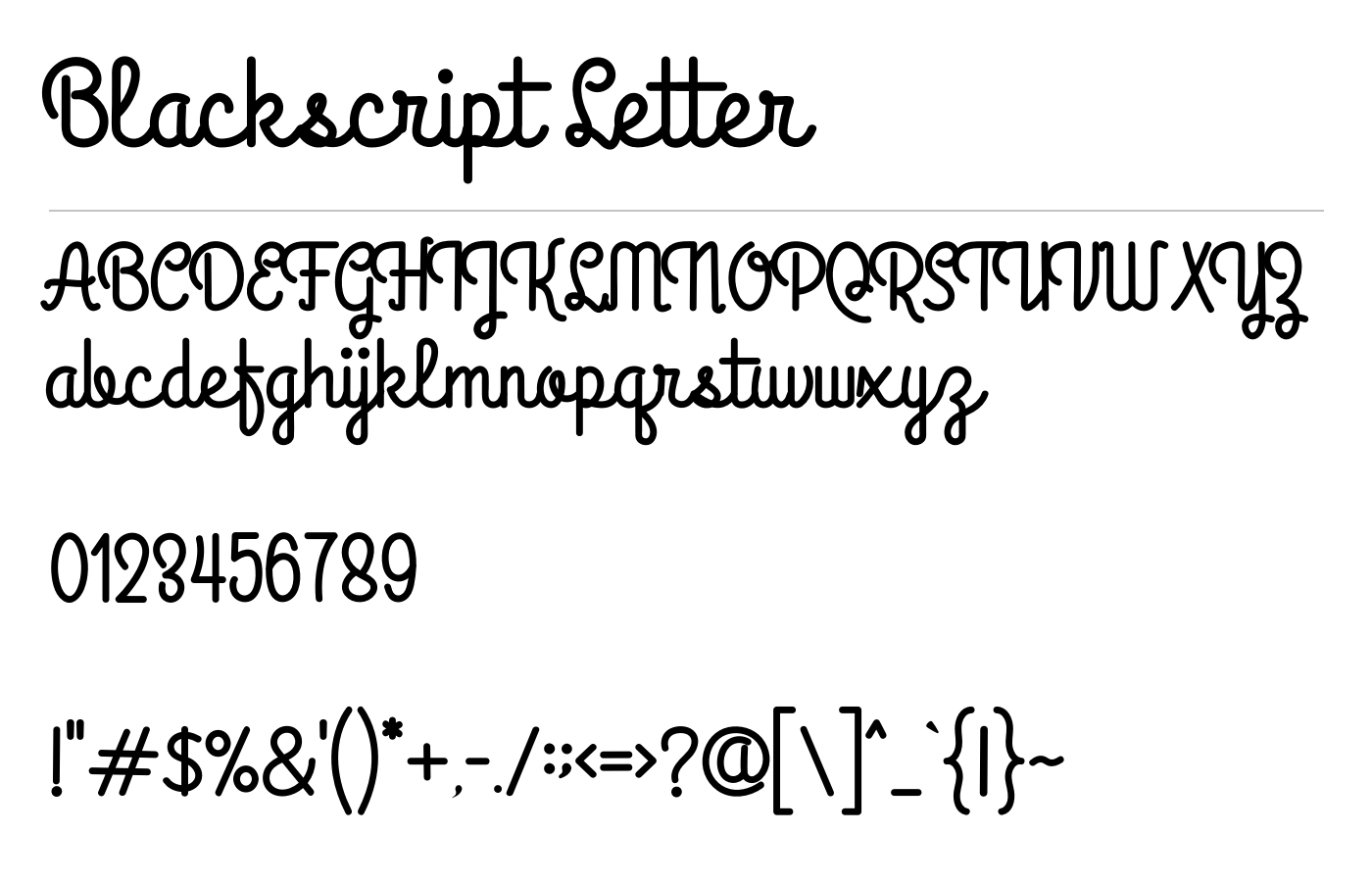
Blackscript Letter is a playful, rounded script font with a smooth, consistent stroke weight that gives it a friendly and approachable feel. Its connected letterforms and unique curls add personality and charm, making it ideal for creative branding, informal invitations, and eye-catching headlines. This font brings a casual yet stylish vibe, perfect for projects seeking a modern handwritten touch.
Blackscript Letter Font
About Blackscript Letter Font